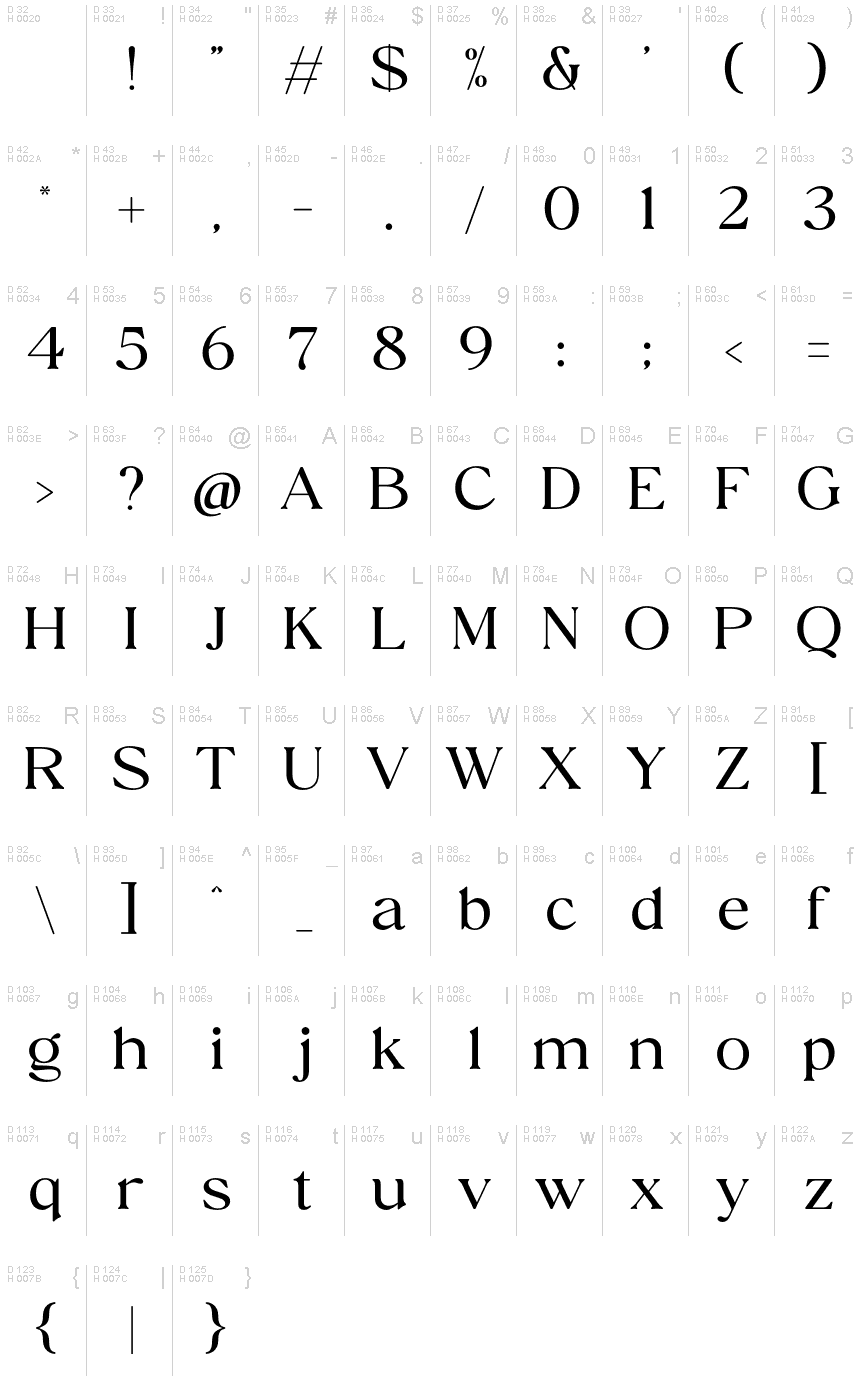
Gilnger
Gilnger, designed by BrandSemut, is a sophisticated serif font with a semi-light weight.
Its elegant and refined style makes it perfect for luxury branding projects, such as high-end fashion labels or premium hotel identities. With its clean lines and classic charm, Gilnger also lends itself well to print materials like editorial layouts for lifestyle magazines or elegant wedding invitations.
Whether used in digital or print applications, this versatile font adds a touch of timeless elegance to any project, making it the ideal choice for those seeking a touch of sophistication.